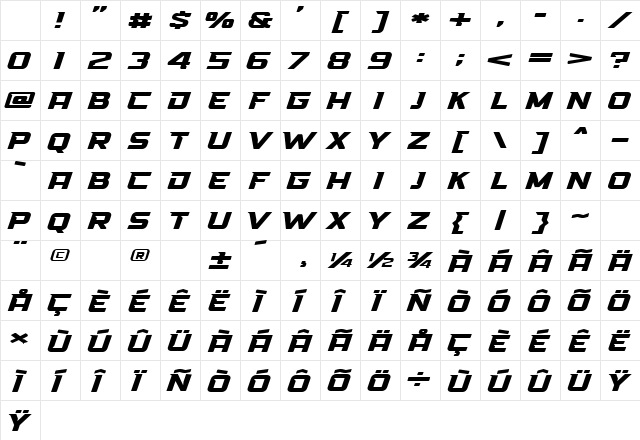
Complete High Speed Regular glyph index. Displaying only characters natively supported by High Speed Regular font.
High Speed is a composed and adaptable typeface that performs quietly and consistently across a wide range of design contexts.
Pro Tip: Use High Speed in both headline and body roles to test its range before committing to a single application.